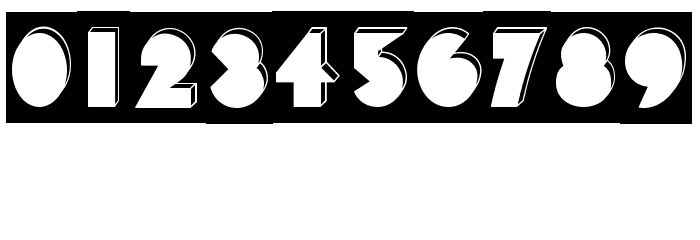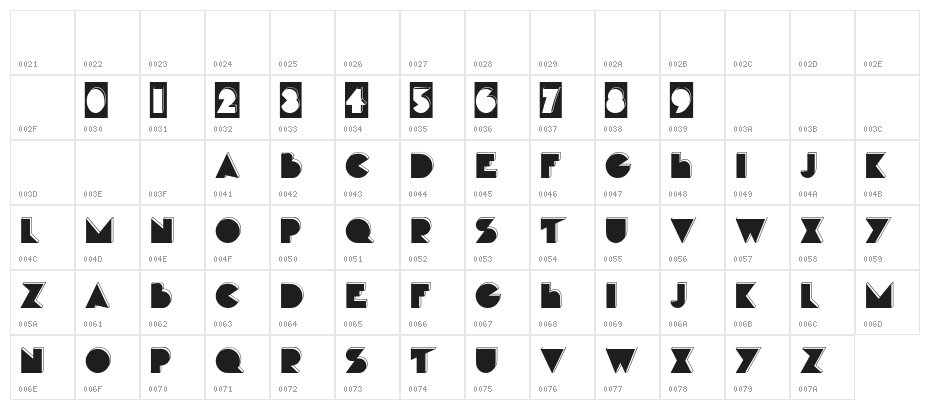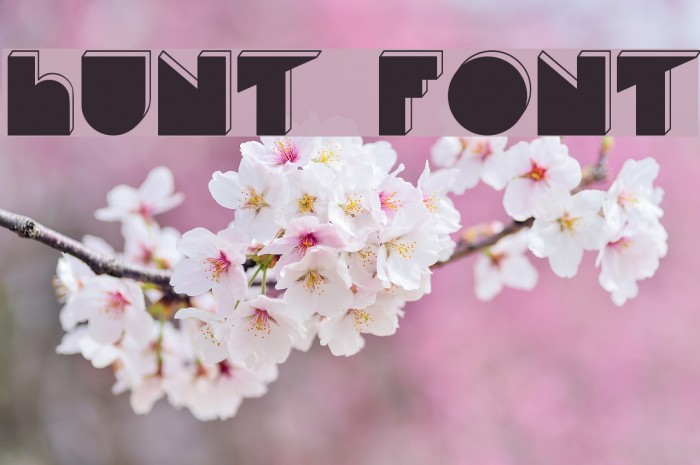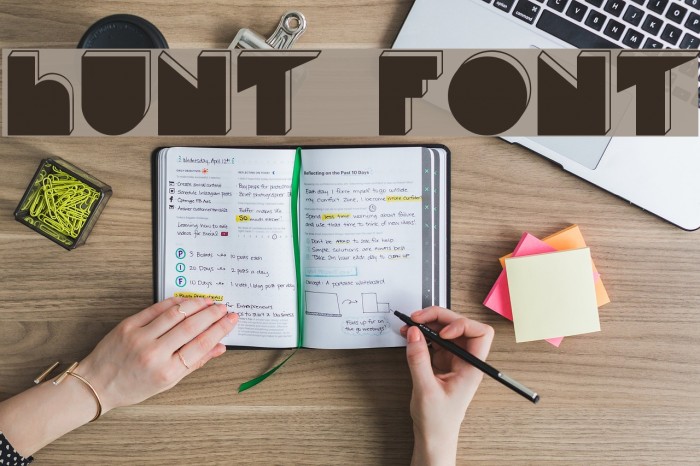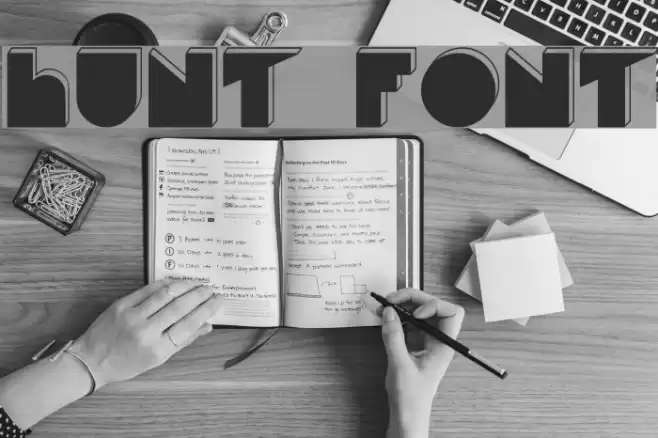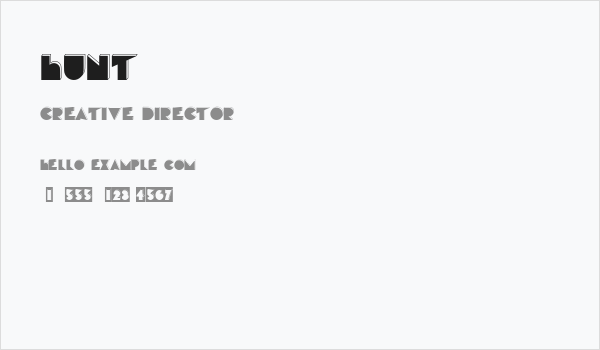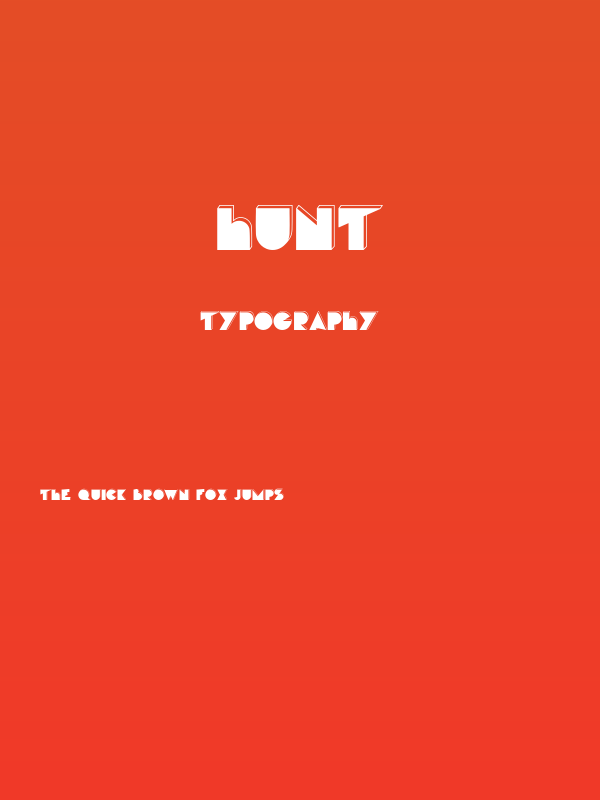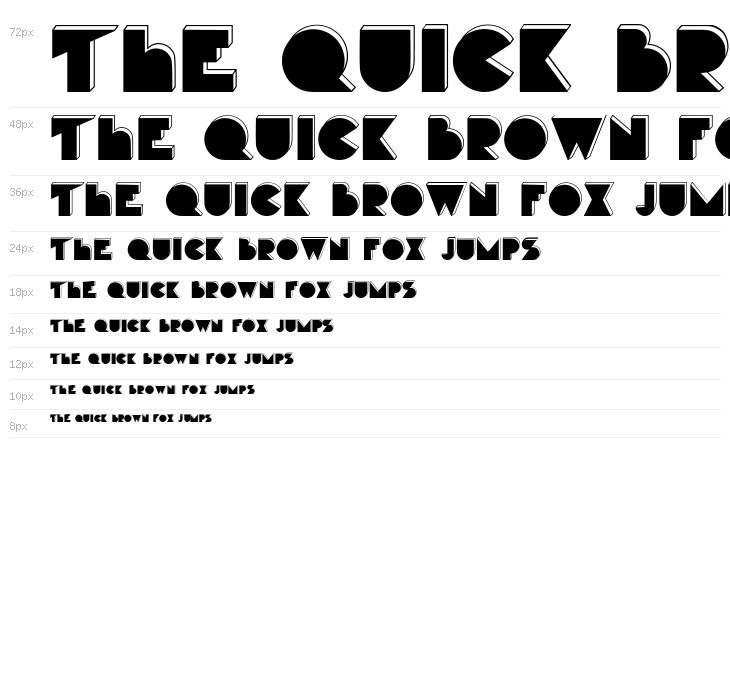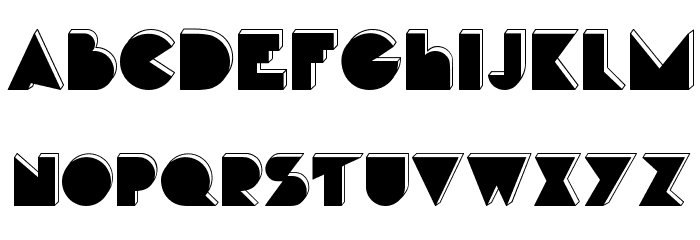
Hunt Font
Hunt Description
This font features a bold and dynamic style with a strong geometric influence. The characters are constructed with sharp angles and a three-dimensional effect, giving them a striking and modern appearance. The uppercase and lowercase letters maintain a consistent design, with the lowercase mirroring the uppercase in form. Numbers are equally bold, with a unique style that complements the letters. The font's design is ideal for making a visual impact, with its thick strokes and high contrast between the filled and unfilled spaces, creating a sense of depth and movement.
| Proposed Projects | Ideal for posters, logos, and headlines where a bold statement is needed. |